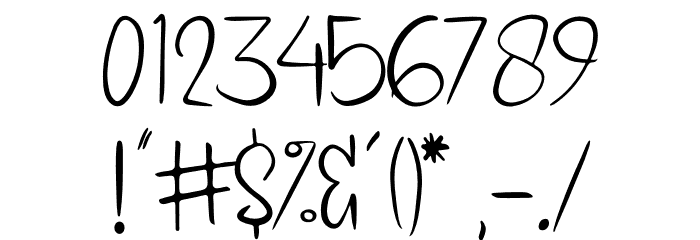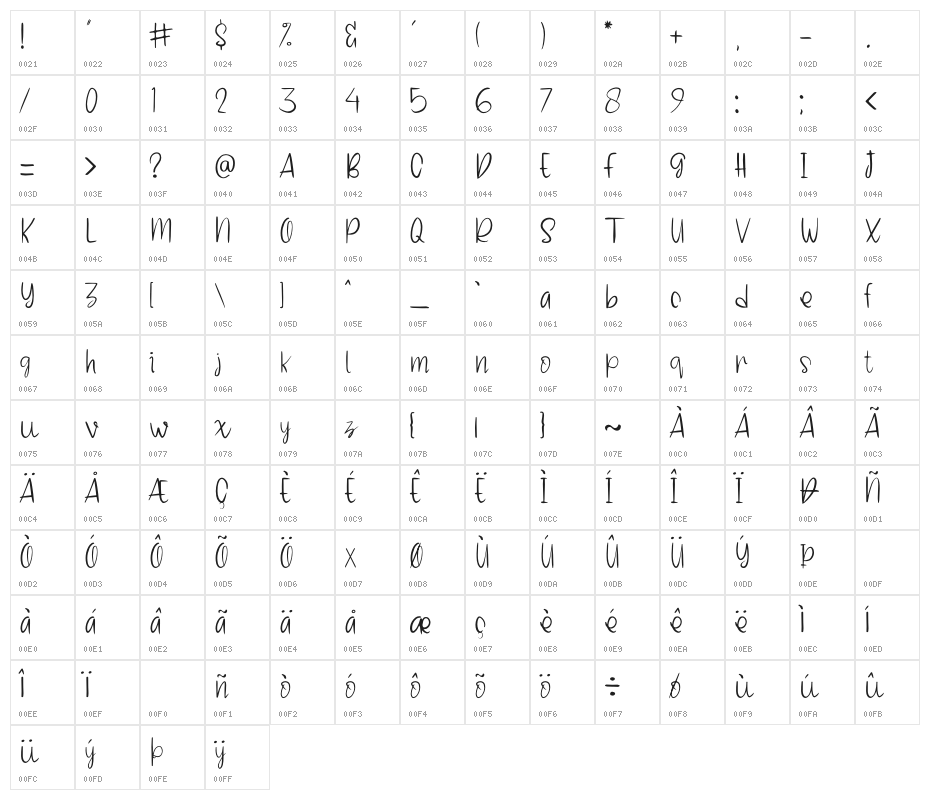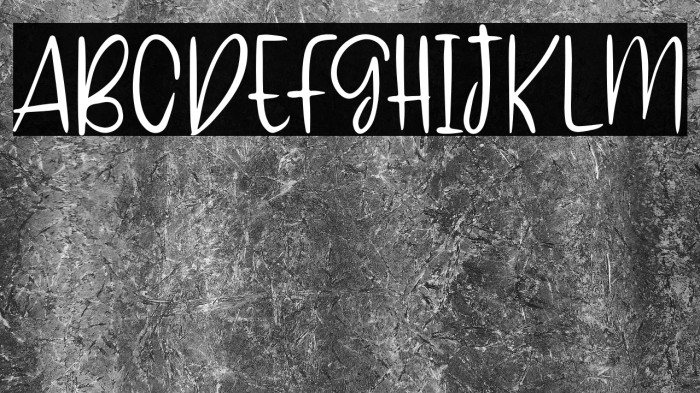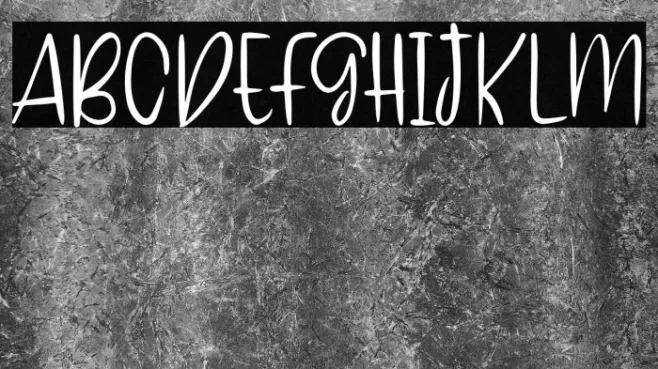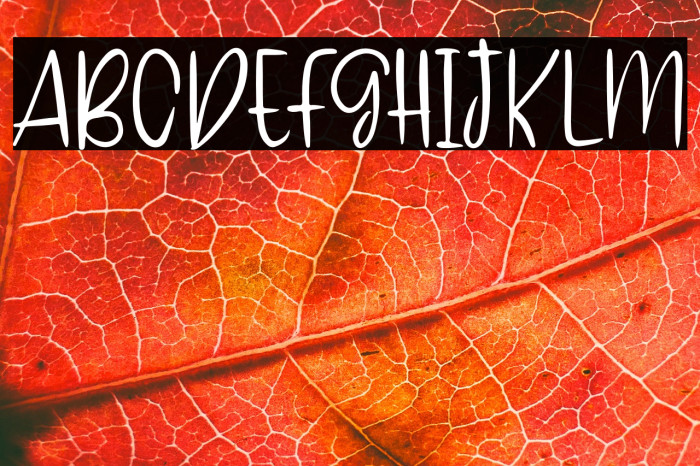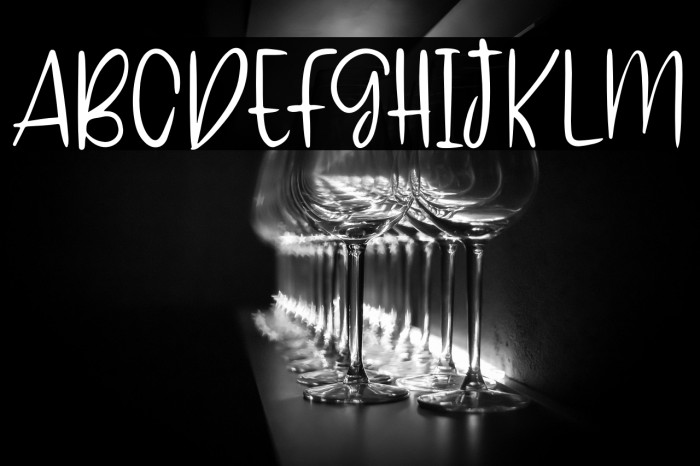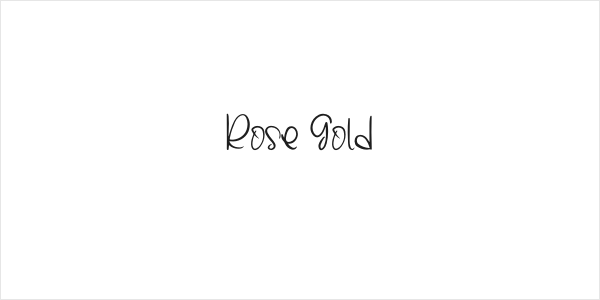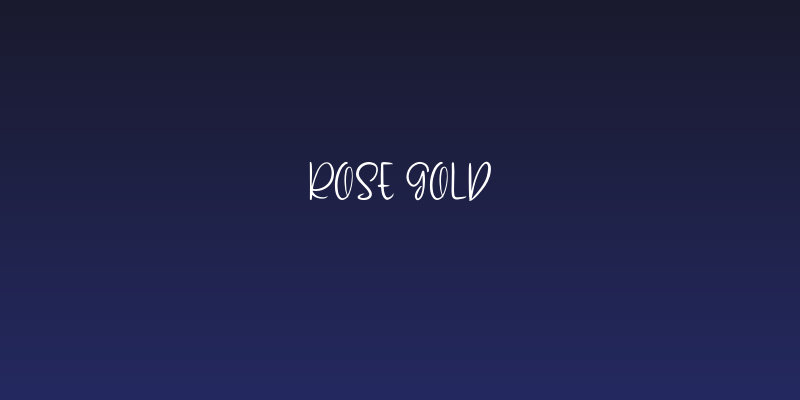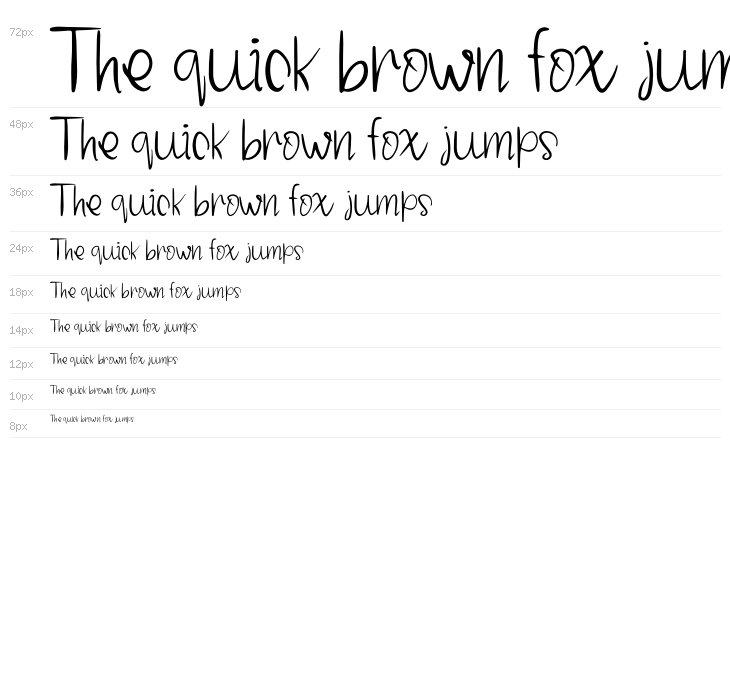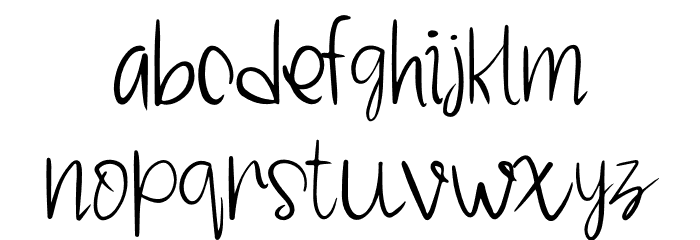
Rose Gold Font
Rose Gold Description
This font features a playful and casual handwritten style, characterized by its smooth, flowing lines and slightly irregular shapes. The uppercase letters are tall and slender, with a consistent stroke width that gives them a clean and modern appearance. The lowercase letters maintain the same fluidity, with some characters having unique loops and curves that add to the font's charm. The numerals are well-proportioned and align seamlessly with the overall style, while the special characters retain the same whimsical quality. This font is versatile, offering a friendly and approachable aesthetic that can be used in various design contexts.